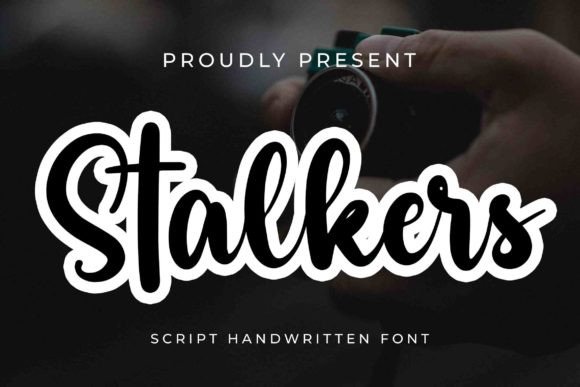
Journey into the enthralling realm of Stalkers Font, a captivating script that dances across the digital canvas with effortless grace and charm. This modern handwritten font, lovingly crafted by handles creative, is not just a collection of letters; it's an artistic expression that brings your words to life.
With its meticulously crafted curves and flowing lines, Stalkers Font exudes a touch of elegance and sophistication that elevates every design project. Whether you're creating logos, social media posts, or embarking on creative crafting adventures, this font seamlessly blends into your vision, adding a layer of visual intrigue that captivates the beholder.
Step into the world of Stalkers Font and let your creativity soar. Its versatility knows no bounds, allowing you to effortlessly mold it to your unique style and vision. Let the smooth transitions and harmonious letterforms guide you as you craft designs that resonate with your audience, leaving an indelible mark on their hearts and minds.